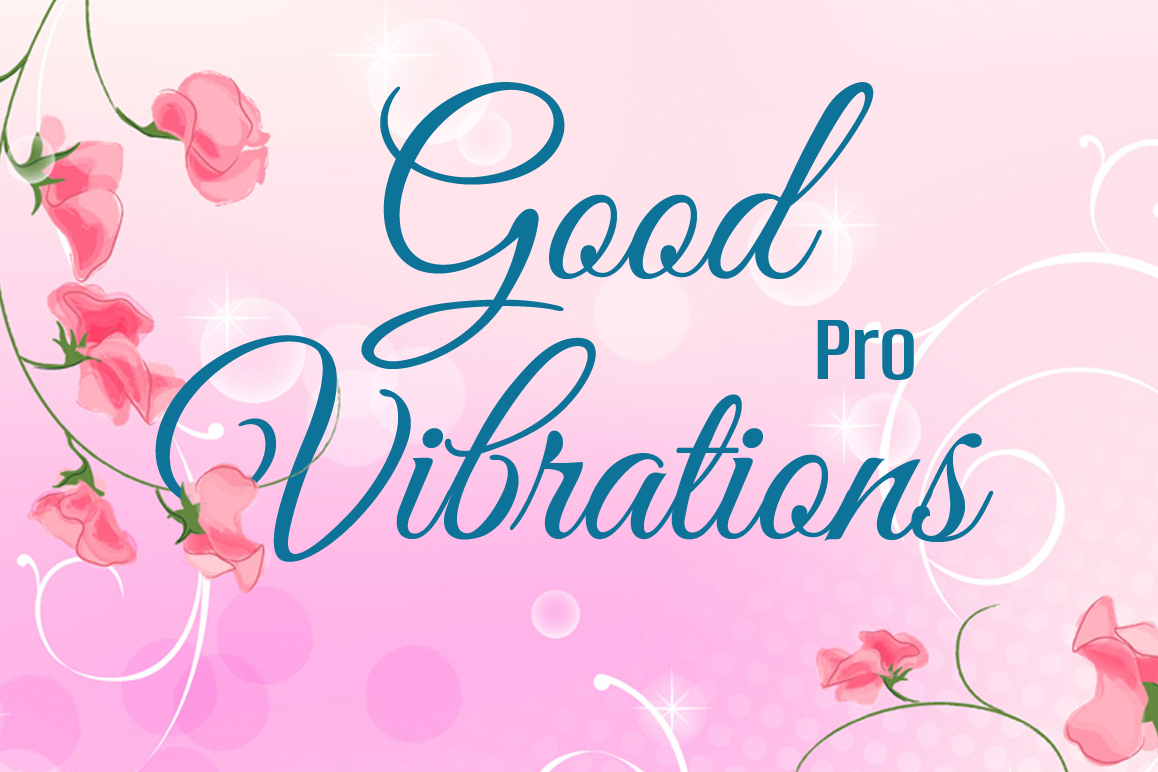
Good Vibrations Pro - Part of the Amazing Scripts Bundle!
A beautifully flowing script with casual uppercase forms combined with more formal lowercase letters.
Good Vibrations Pro is an extension of this popular font. Over 400 glyphs, with character sets for European languages. OpenType features include smooth connecting ligatures and alternate characters.